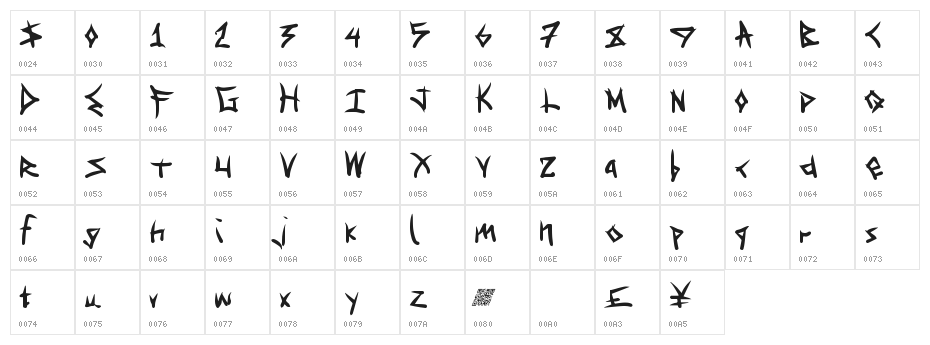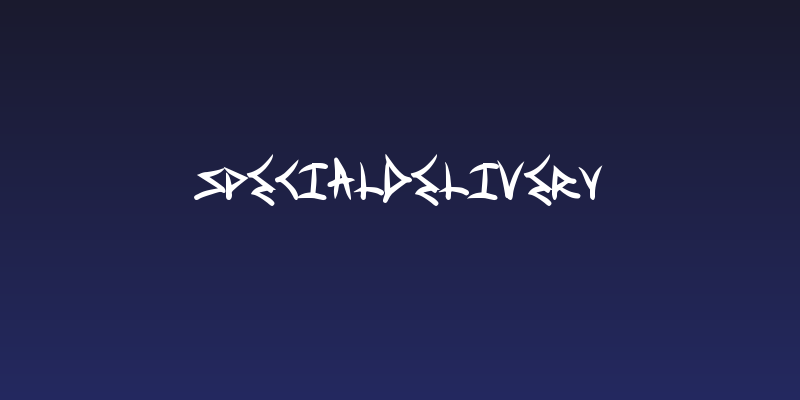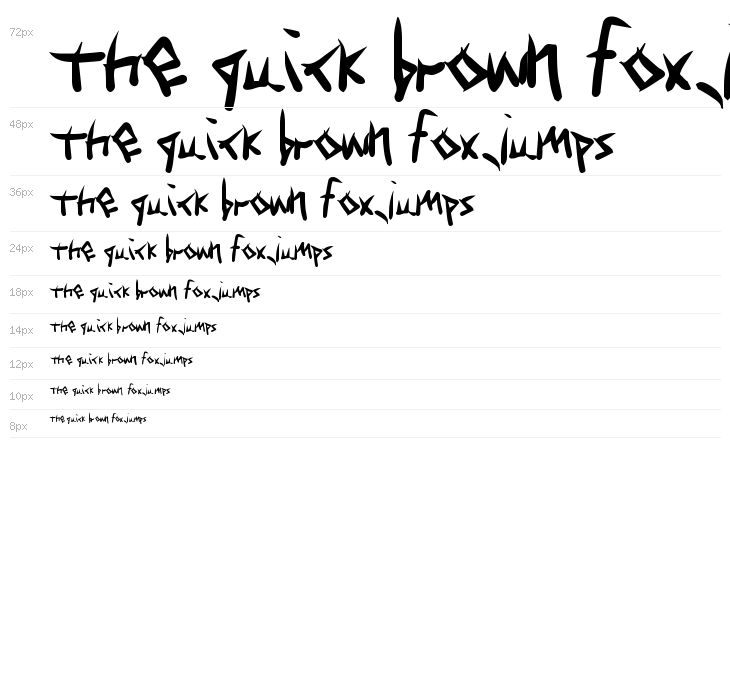
SpecialDelivery Font
SpecialDelivery Description
This font features a bold, edgy design with sharp, angular strokes that give it a dynamic and rebellious feel. The uppercase letters are particularly striking, with exaggerated points and a sense of movement. The lowercase letters maintain this energetic style, though they are slightly more subdued. Numbers and special characters follow the same aesthetic, ensuring a cohesive look across all text elements. The font's unique style makes it stand out, perfect for projects that require a strong visual impact.
| Overall Style | Modern, Edgy |
| Use Case | Logos, Posters, Headlines |
| Proposed Projects | Ideal for music album covers, streetwear branding, skateboarding graphics, or any project needing a bold, dynamic look. |